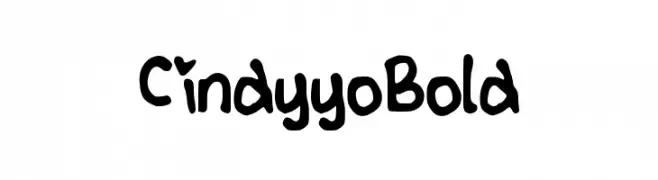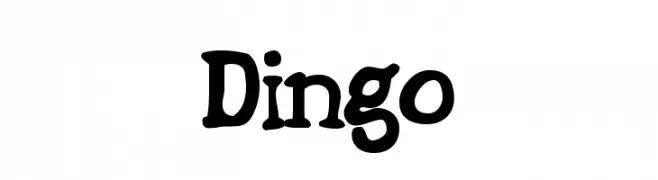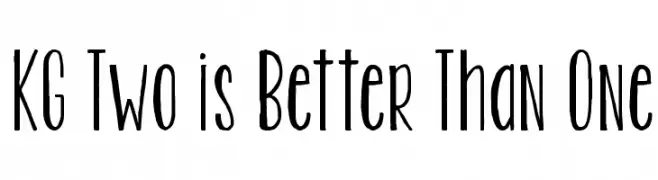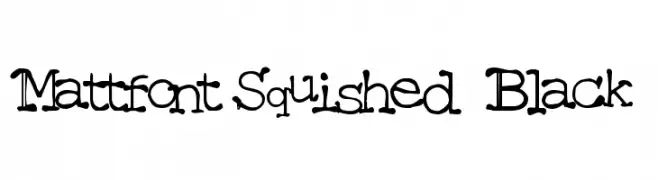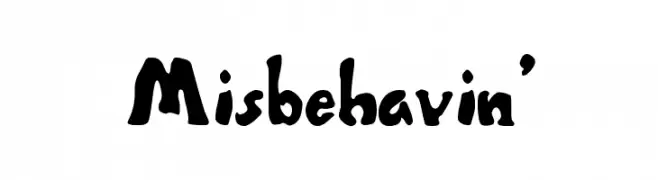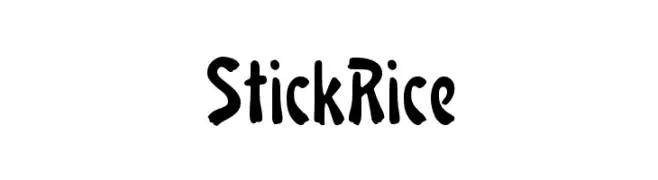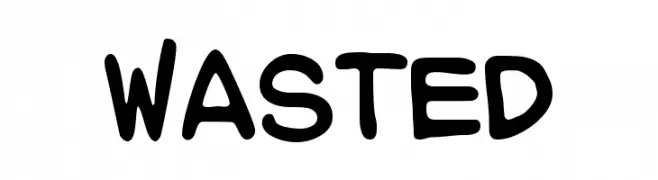
A whimsical, curly serif font with a playful, hand-drawn style.
A playful, bold font with rounded, thick strokes and a whimsical touch.
A playful, whimsical font with tall, narrow characters and a hand-drawn feel.
A playful, bold, hand-drawn font with a whimsical style.
A playful, hand-drawn font with bold, uneven strokes and a whimsical style.
A bold, playful font with exaggerated curves and a whimsical, hand-drawn style.